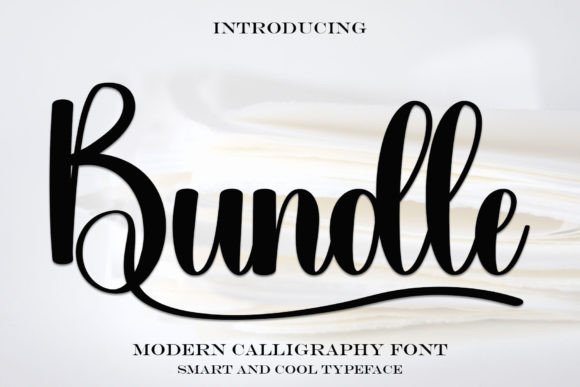
The Perfect Font for Your Next Design Project: A Deep Dive into Bundle Font
I’ll never forget the time I was working on a project for a client who wanted a elegant and sophisticated look. I had spent hours browsing through font libraries, but nothing seemed quite right. That was until I stumbled upon Bundle Font. Its delicate, flowing script immediately caught my eye, and I knew I had found the perfect fit. In this article, I’ll share my experience with Bundle Font, its features, and how to make the most of it in your designs.
An Honest Review of Bundle Font
So, what makes Bundle Font special? Here are a few things I love:
• ✨ Elegant and sophisticated: Bundle Font has a beautiful, flowing script that adds a touch of elegance to any design.
• ✅ Well-balanced characters: The font has a great balance of characters, making it easy to read and visually appealing.
• 🌈 Versatile: Bundle Font matches a wide range of designs, from modern and minimalist to vintage and ornate.
Of course, no font is perfect, and Bundle Font has a few quirks:
• 🤔 Limited use in very small sizes: While Bundle Font looks great in larger sizes, it can become a bit blurry and hard to read when used in very small sizes.
• ⚠️ No bold weights: If you need a bold version of Bundle Font, you might need to look elsewhere or use a faux bold effect.
The Story Behind Bundle Font
Bundle Font was designed by a team of typographers who wanted to create a font that would add a touch of elegance and sophistication to any design. Inspired by classic calligraphy and handwriting, Bundle Font features beautiful, flowing characters that are perfect for a wide range of design projects.
Font Name Bundle Font
Author putrasyahreza00
What is Bundle Font? Bundle Font is a delicate, elegant, and flowing handwritten font with beautiful and well-balanced characters.